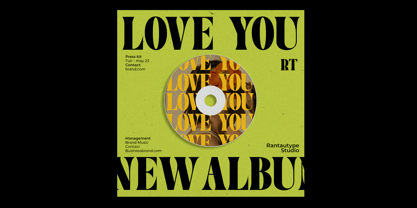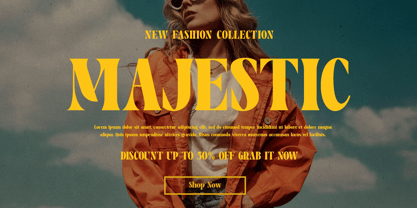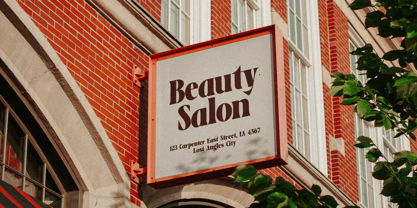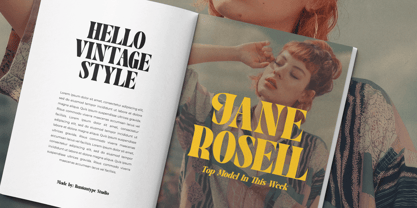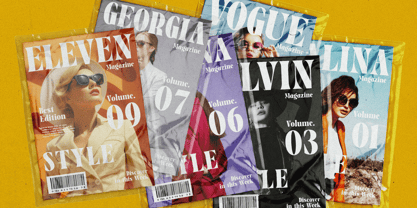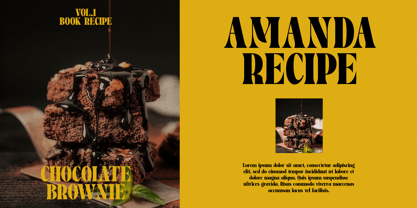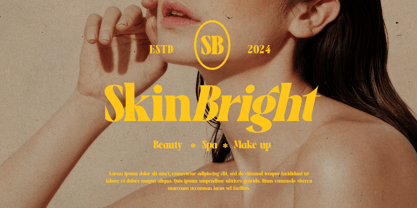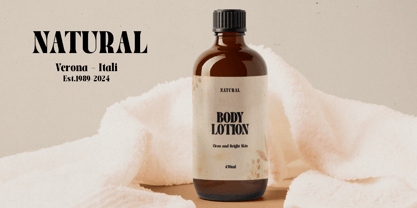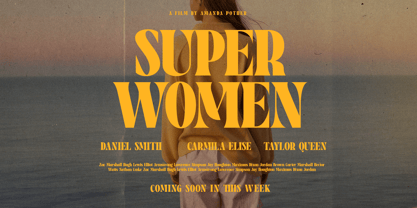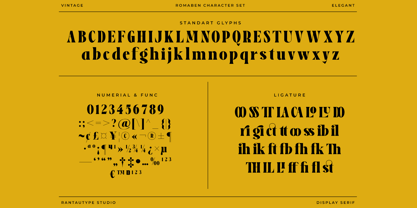
Romaben
by RantauType
The Romaben Font Family was designed by Yudi Pratama Chandra and published by RantauType. Romaben contains 2 styles and family package options. More about this family
Romaden is elegant vintage font with nostalgic charm and prestigious shape captures the essence of the 70s 80s 90s. Romaben bring a special touch in you design project with sharp character more stylish and old-fashioned.
Romaden is a perfectly choice for any creative endeavor, chic, lifestyle design such as logos, advertisements, stationery, branding project, display and magazine, invitation, corporate brand, product design, label, business project and many other project with vintage nostalgic touch.
Designers: Yudi Pratama Chandra
Foundry: RantauType